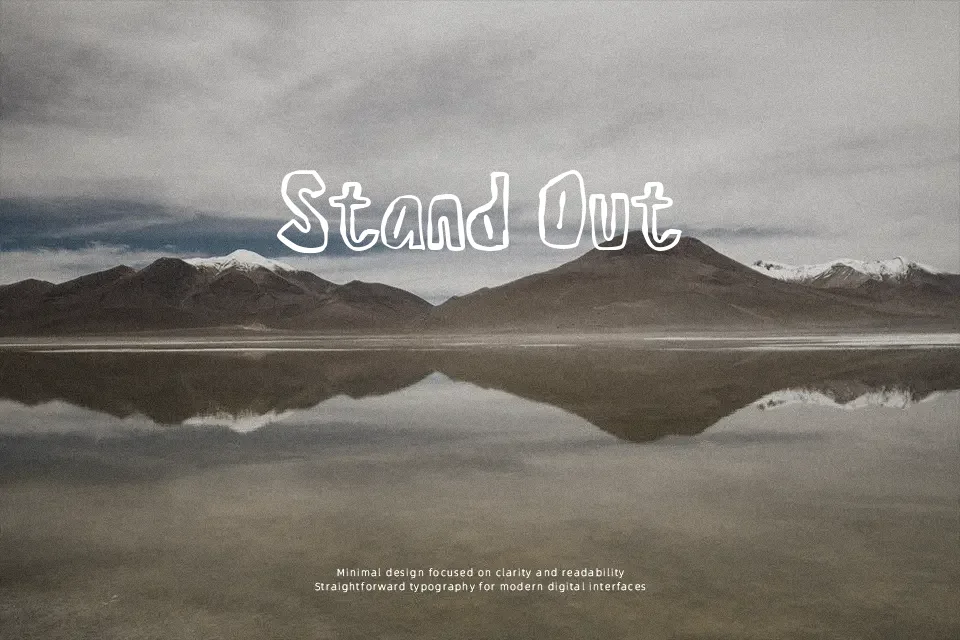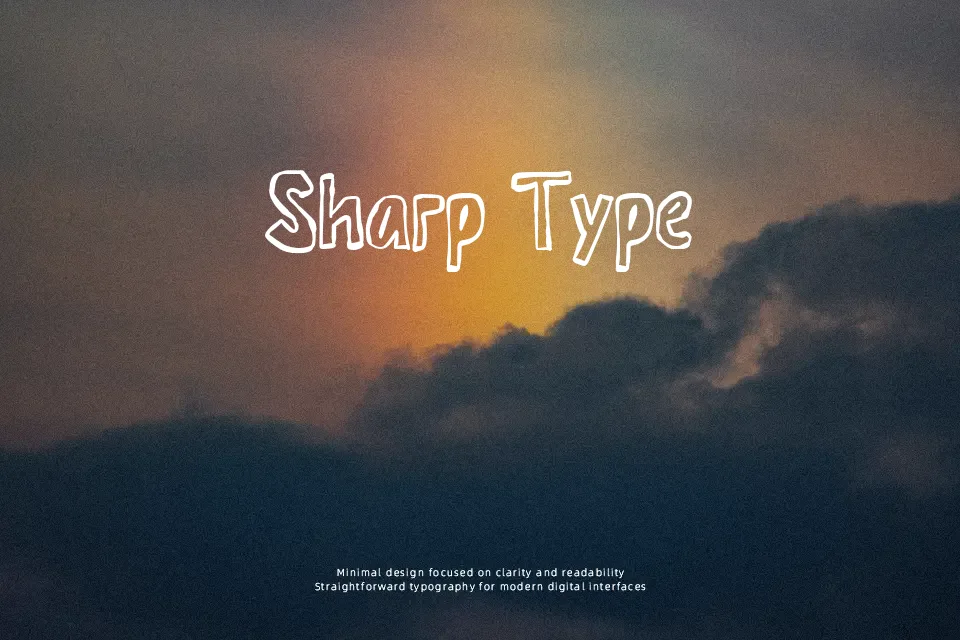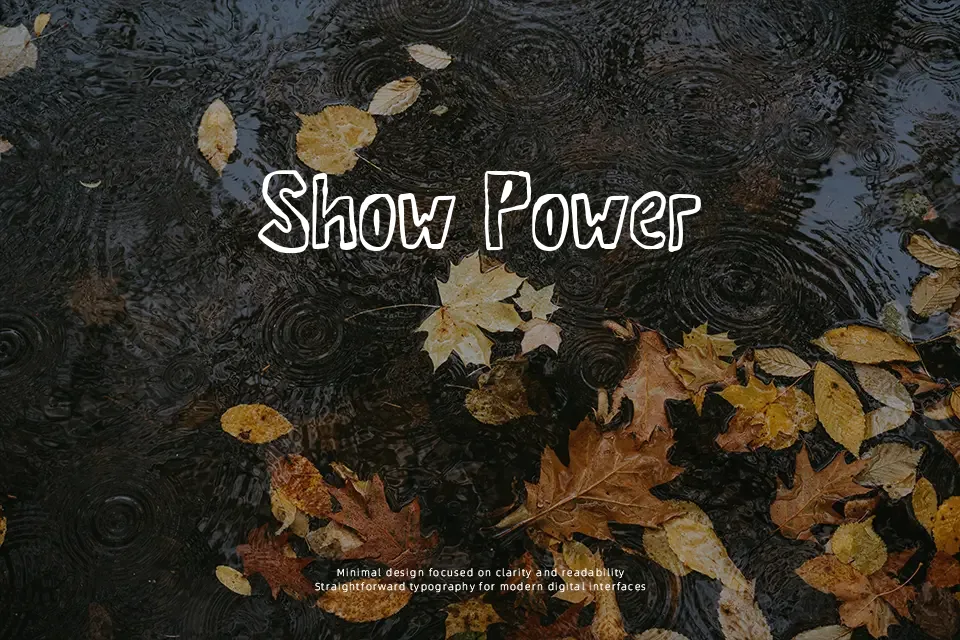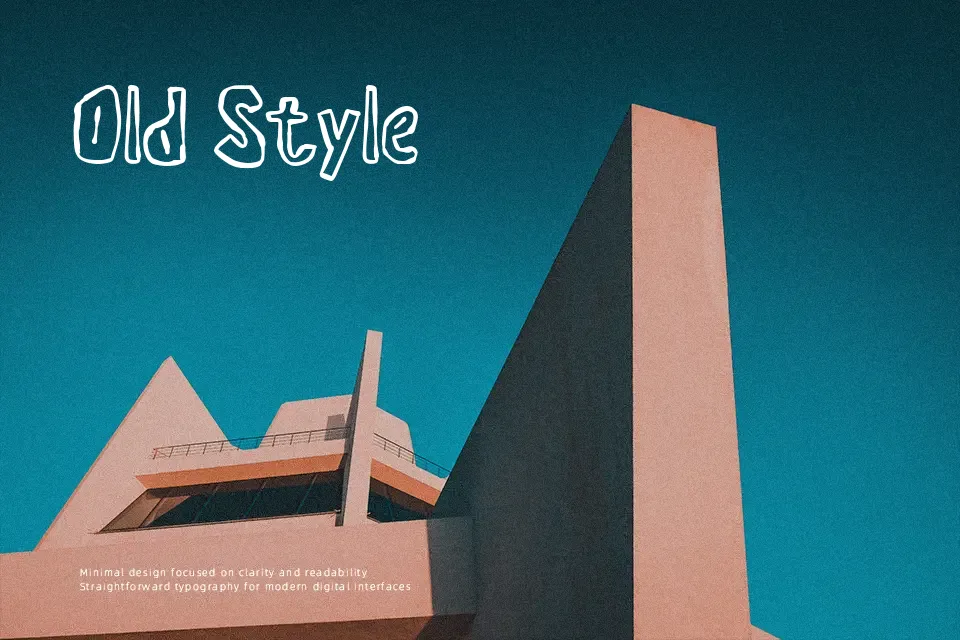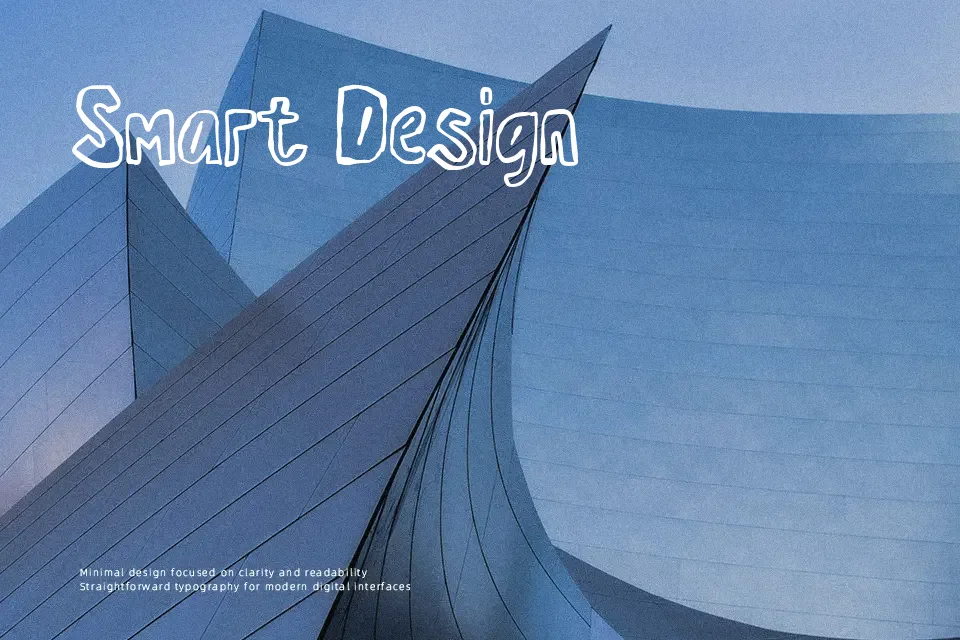
Stone Old Font
Stone Old Font delivers an expressive display structure defined by chunky, hand-hewn strokes and uneven contours reminiscent of prehistoric stone carvings. Each glyph exhibits low stroke contrast, blunt corners, and wide, robust proportions that command immediate attention on a page. The spacing is relatively compact yet consistent, helping uppercase characters maintain distinct silhouettes when set as prominent display titles. These rugged letterforms excel across theme park signage, comic book covers, and casual video game packaging. However, the heavy visual weight and organic irregularity hinder legibility in smaller captions and extended text paragraphs.
Best For: comic book covers, casual video game titles, theme park signage, animated adventure branding
Not Ideal For: long paragraph text, mobile user interfaces, financial spreadsheets, dense editorial layouts
Perfect for gaming, kids, and logo, with a ancient and cartoon style.